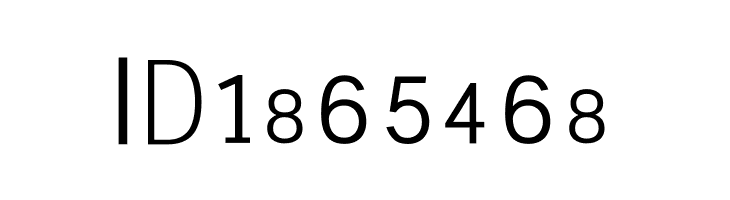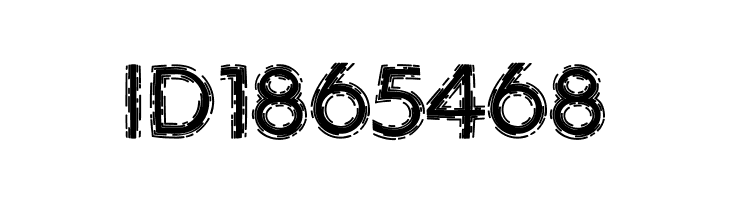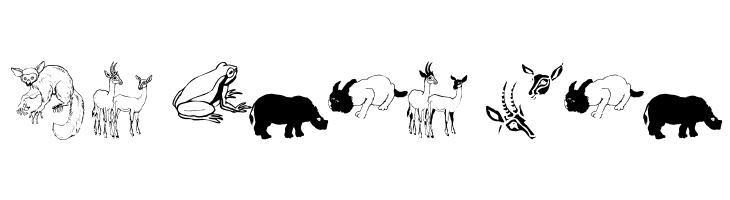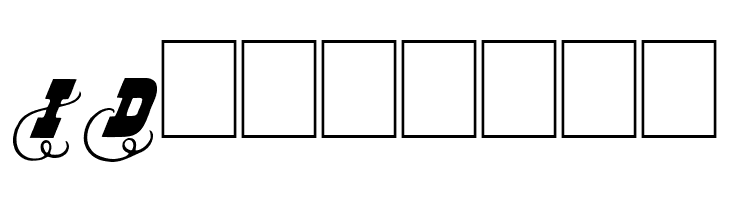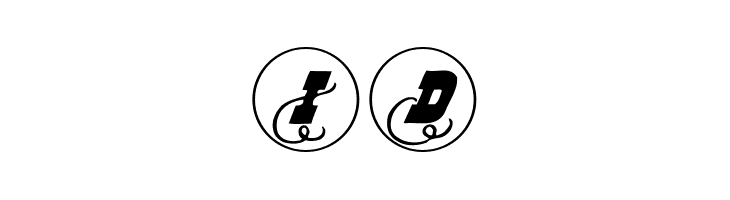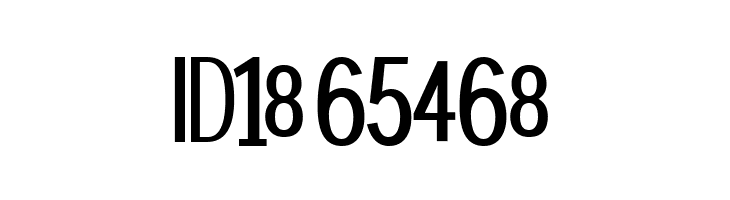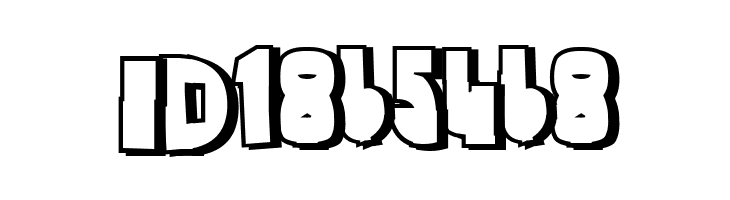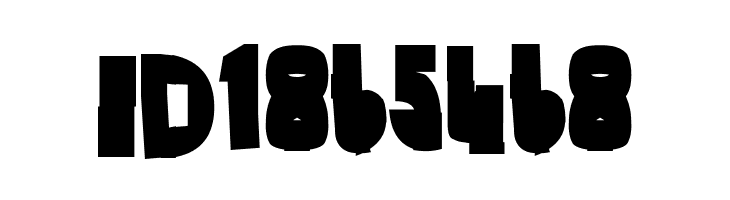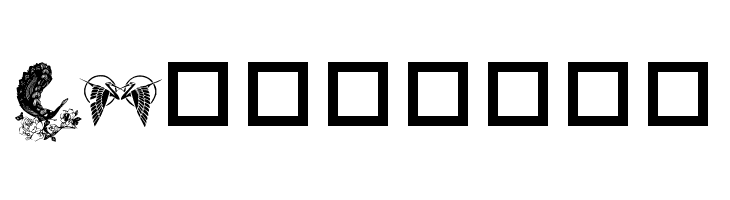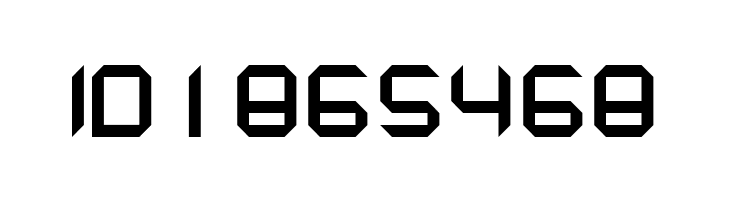
• DisPropSans
A modern, geometric sans-serif font with a clean and professional look.
• DistroyA
A bold, distressed font with a grunge, textured style.
• Diversitia
A modern, geometric sans-serif font with consistent stroke width and clear readability.
• DIY
A bold, playful font with a cartoonish, three-dimensional style.
• Djungle
Animal illustrations form each character in a decorative, playful style.
• DLBirdz
Ornamental font with bird-themed illustrations for each character.
• Do it yourself
A bold, playful font with chunky, exaggerated letterforms.
• Dodge City Initials
A bold, decorative font with ornate swirls and vintage flair.
• Dodgem
• DodgesCaps
Bold, uppercase letters with shadow effects in circular shapes, offering a vintage and decorative style.